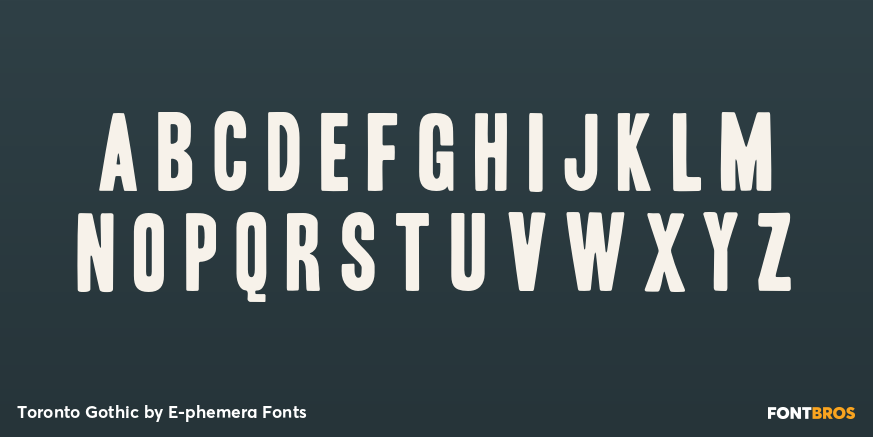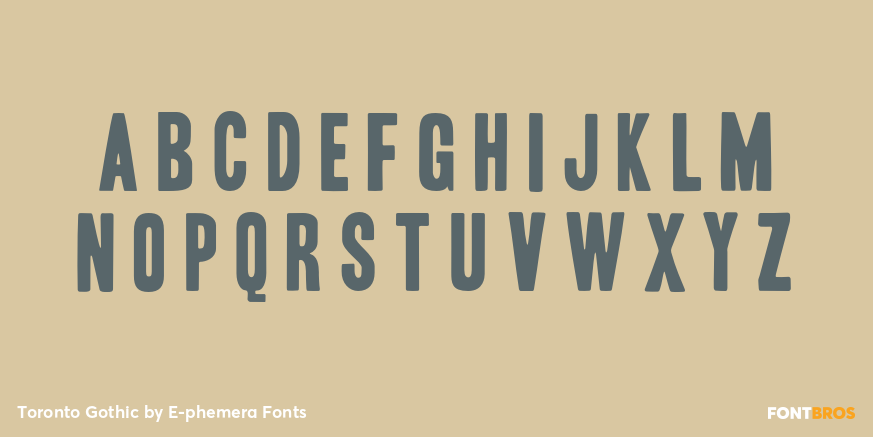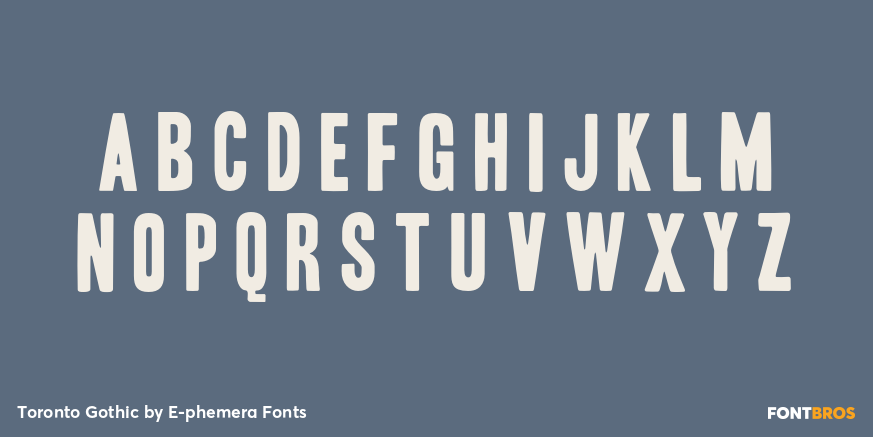
Toronto Gothic
Font Family by E-phemera Fonts
Toronto Gothic was developed from a headline in a 1920s issue of the Toronto Star. In a previous life, it was probably Condensed Titling Gothic #11, but in this form its rounded corners and irregular lines are meant to make it look worn from years of use.